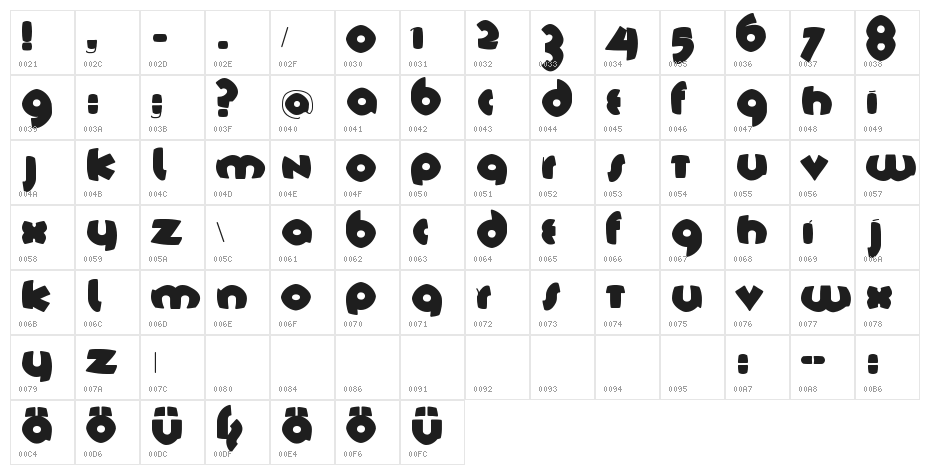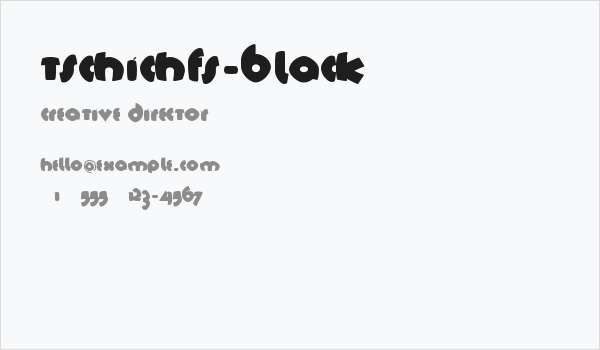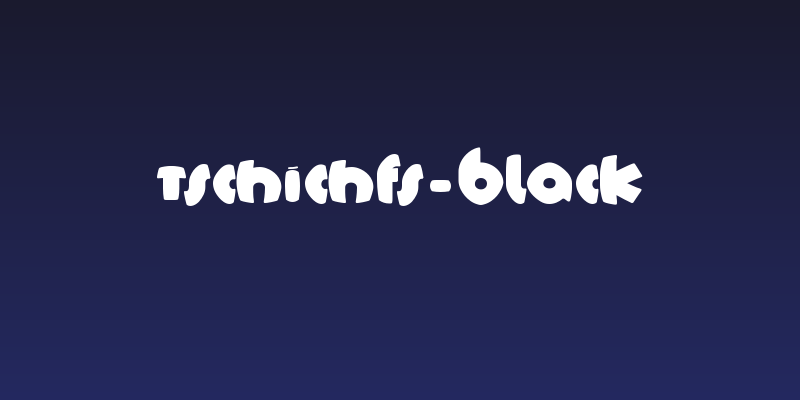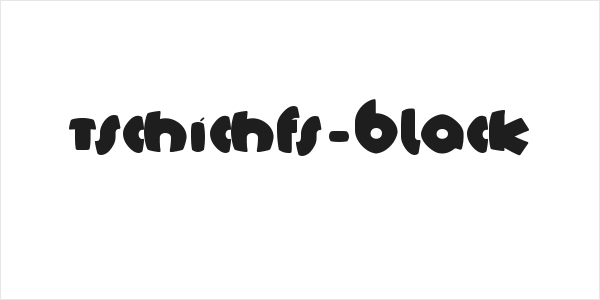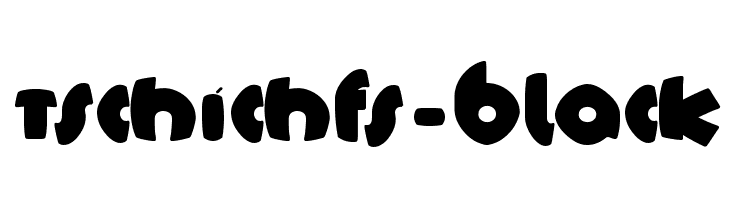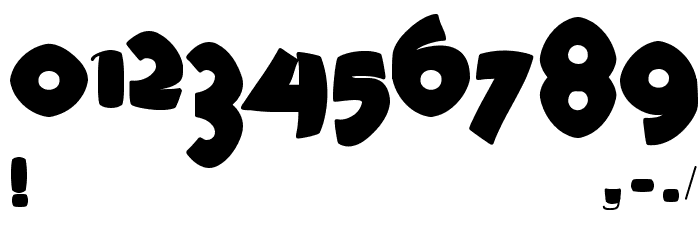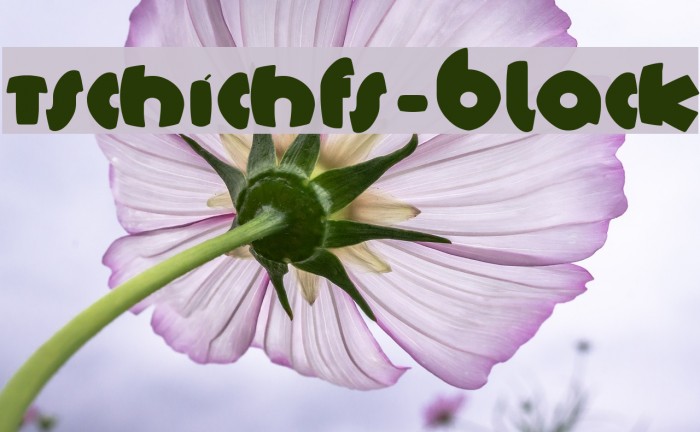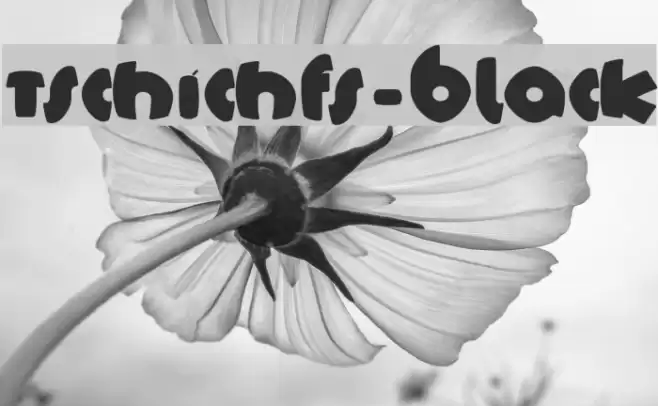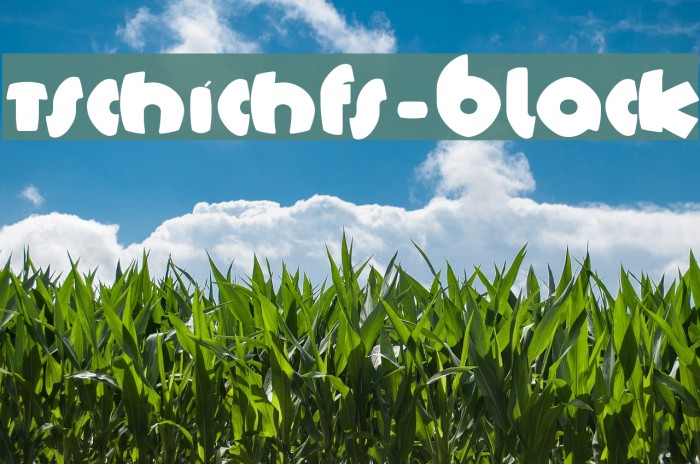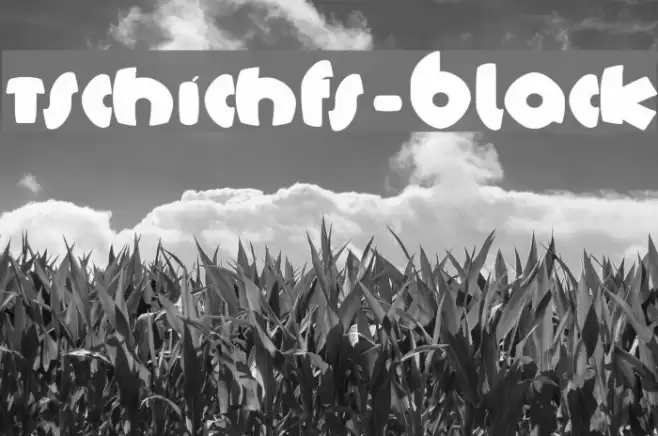
TschichFS-Black Font
| Gesamtstil | Playful, Bold, Whimsical |
| Vorgeschlagene Projekte | Ideal for children's books, playful branding, posters, and creative projects that require a fun and engaging look. |